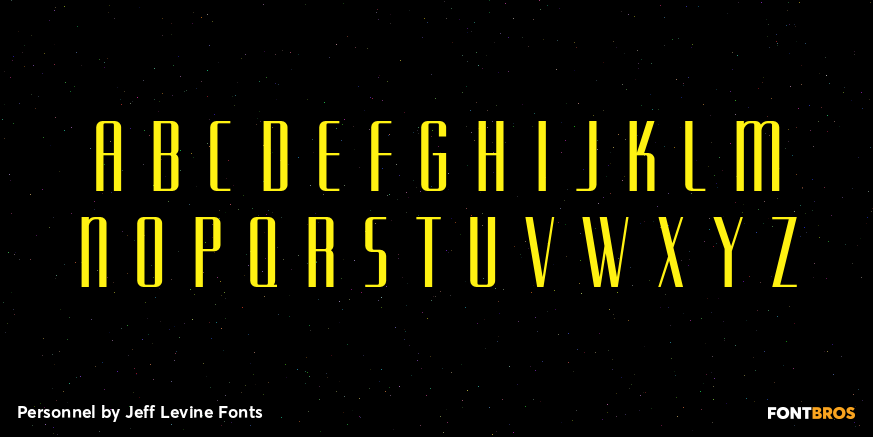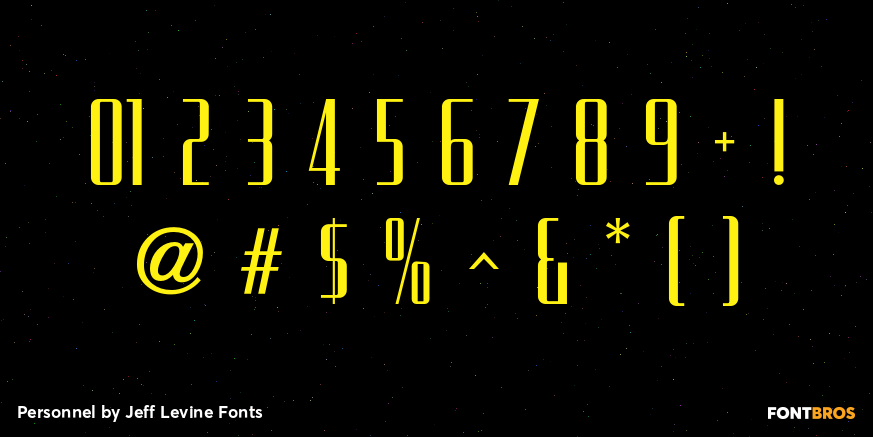
Personnel
The hand lettered title found on the 1938 sheet music for "I Haven't Changed a Thing" is a condensed Art Deco thick-and-thin sans serif with rounded corners.
Reminiscent of office door and similar signage, this classic bit of lettering from the past is now available as Personnel JNL in both regular and oblique versions.